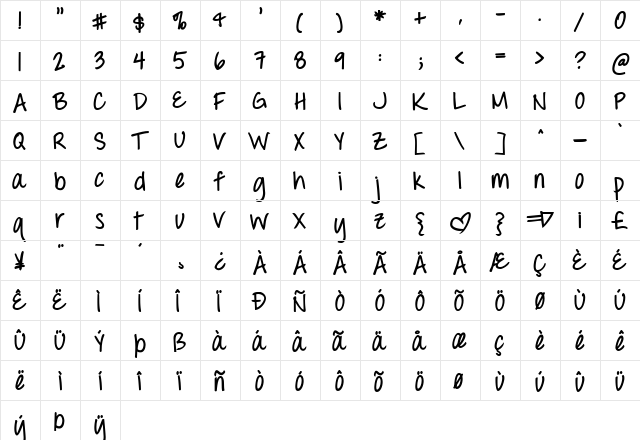
Throw My Hands Up in the Air Bold
| Designer | Kimberly Geswein |
Design Context for Throw My Hands Up in the Air Typeface
Throw My Hands Up in the Air flows with the natural rhythm of handwritten lettering, making it ideal for designs that call for warmth and personal expression. Its bold stroke weight gives it real presence on the page.
Font Pairing: Combine Throw My Hands Up in the Air with a simple geometric sans for maximum contrast — the tension between flowing curves and clean structure is a classic typographic pairing.
Pro Tip: Use Throw My Hands Up in the Air for short runs of text — names, titles, or taglines. Extended body copy in script faces tires the eye quickly.